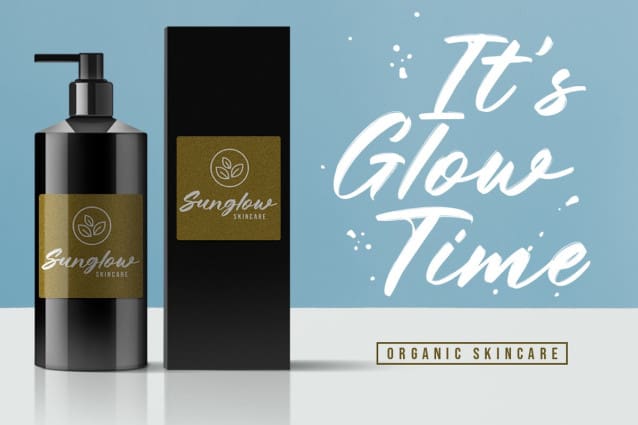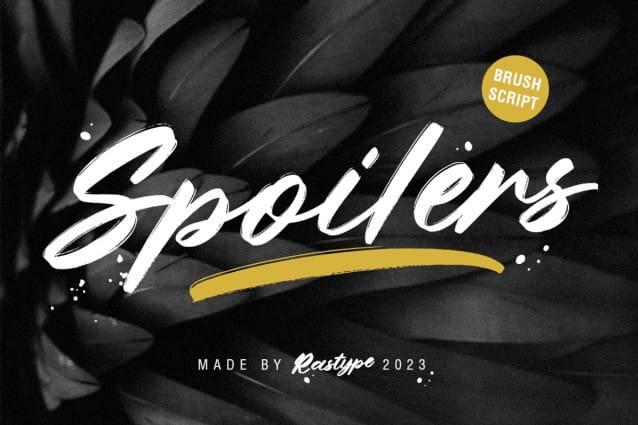
Spoilers Brush Font
Spoilers Brush Font is a textured brush font, with natural handcraft and underlines and ligatures that make your designs more interesting. Suitable for use in designs, such as clothing, invitations, book titles, stationery designs, quotes, branding, logos, greeting cards, t-shirts, packaging designs, posters and more.
The font includes OpenType features with ligature styles and multi-language support.